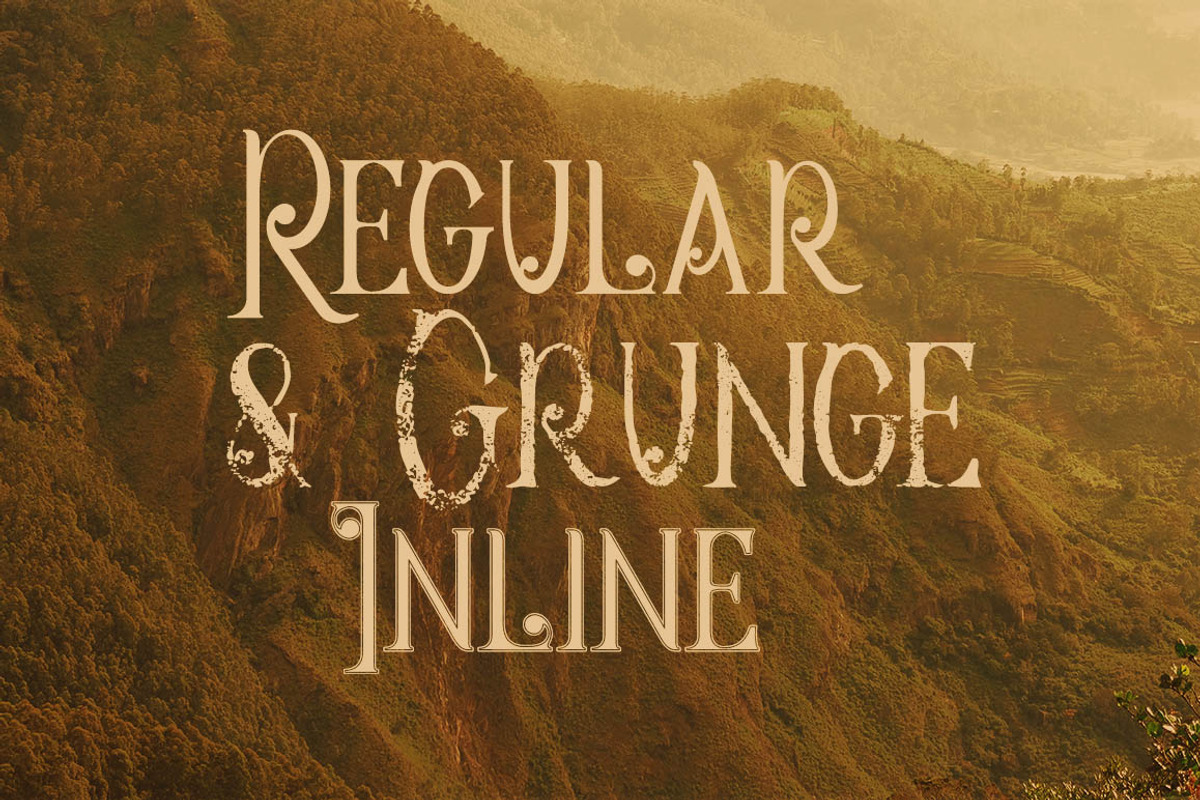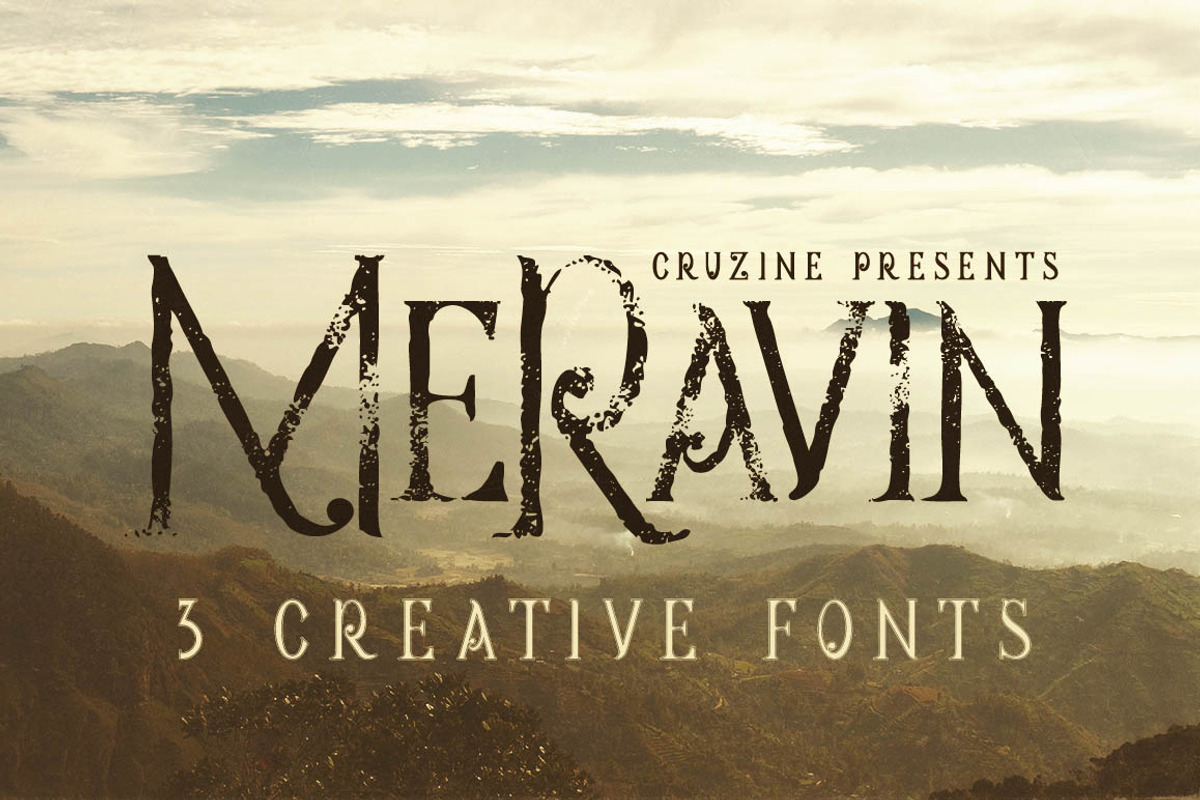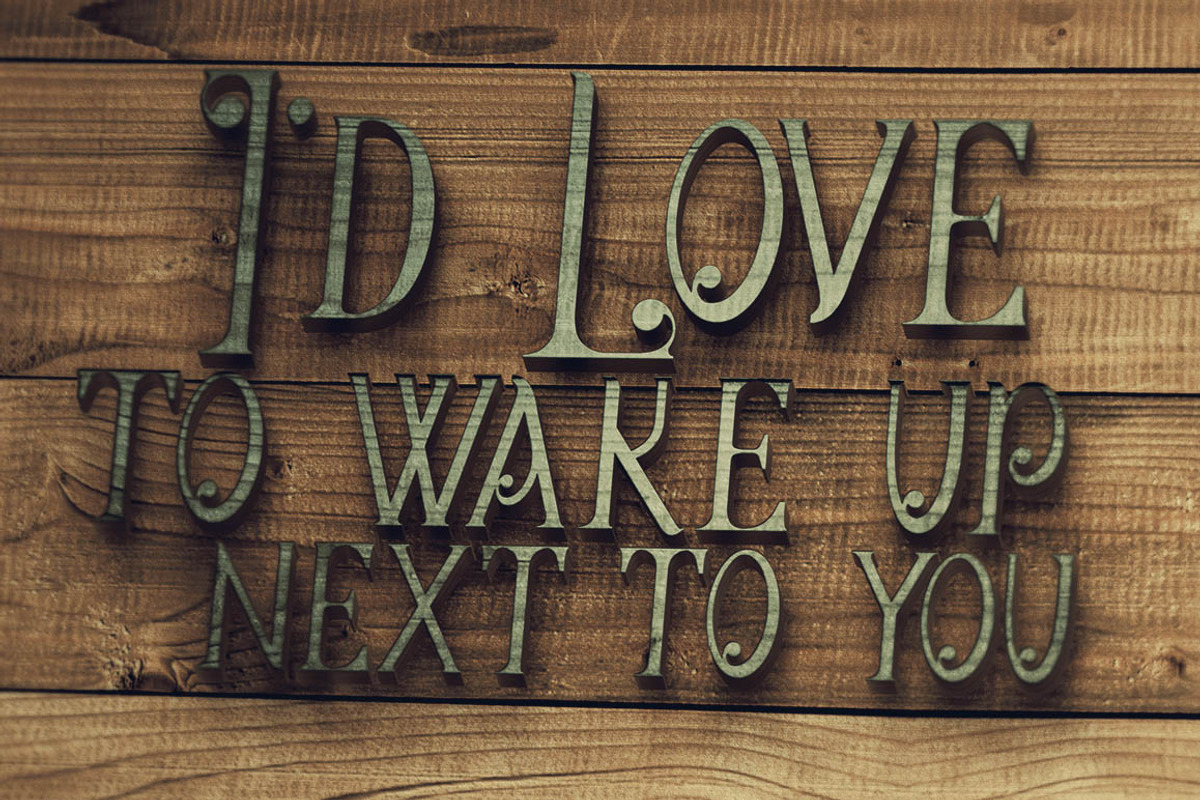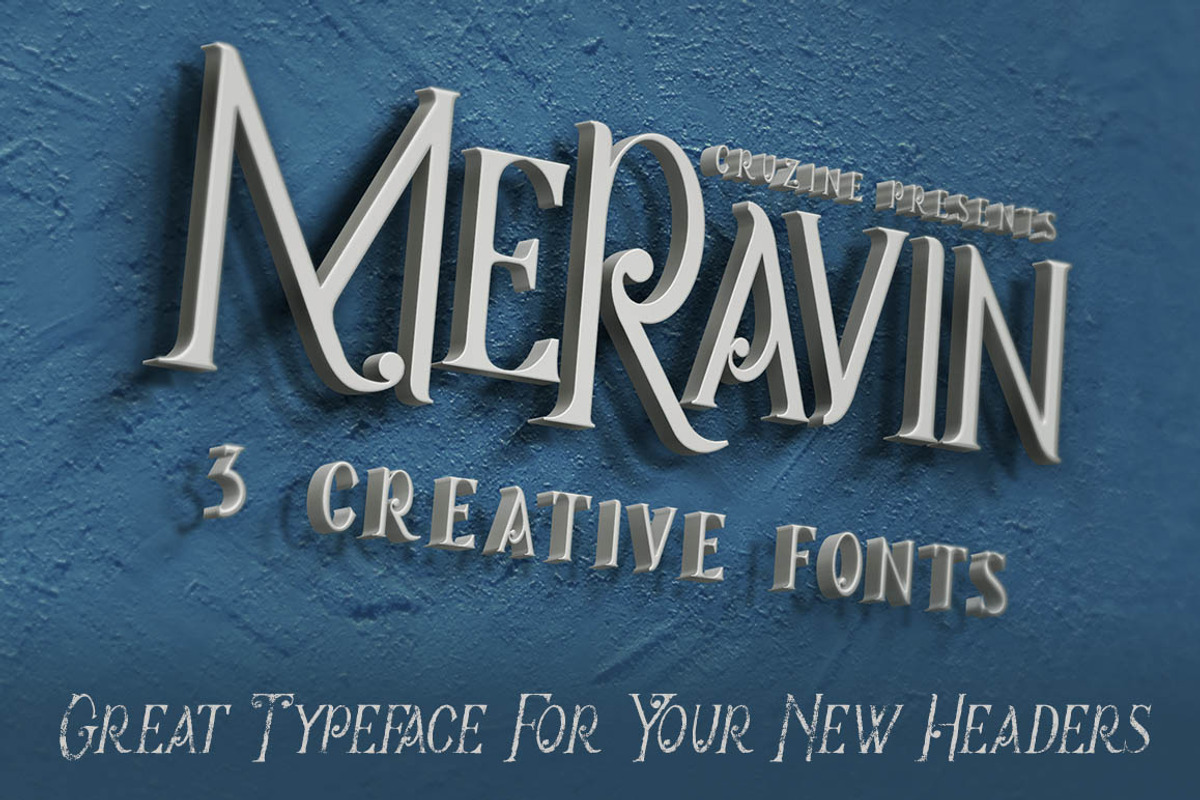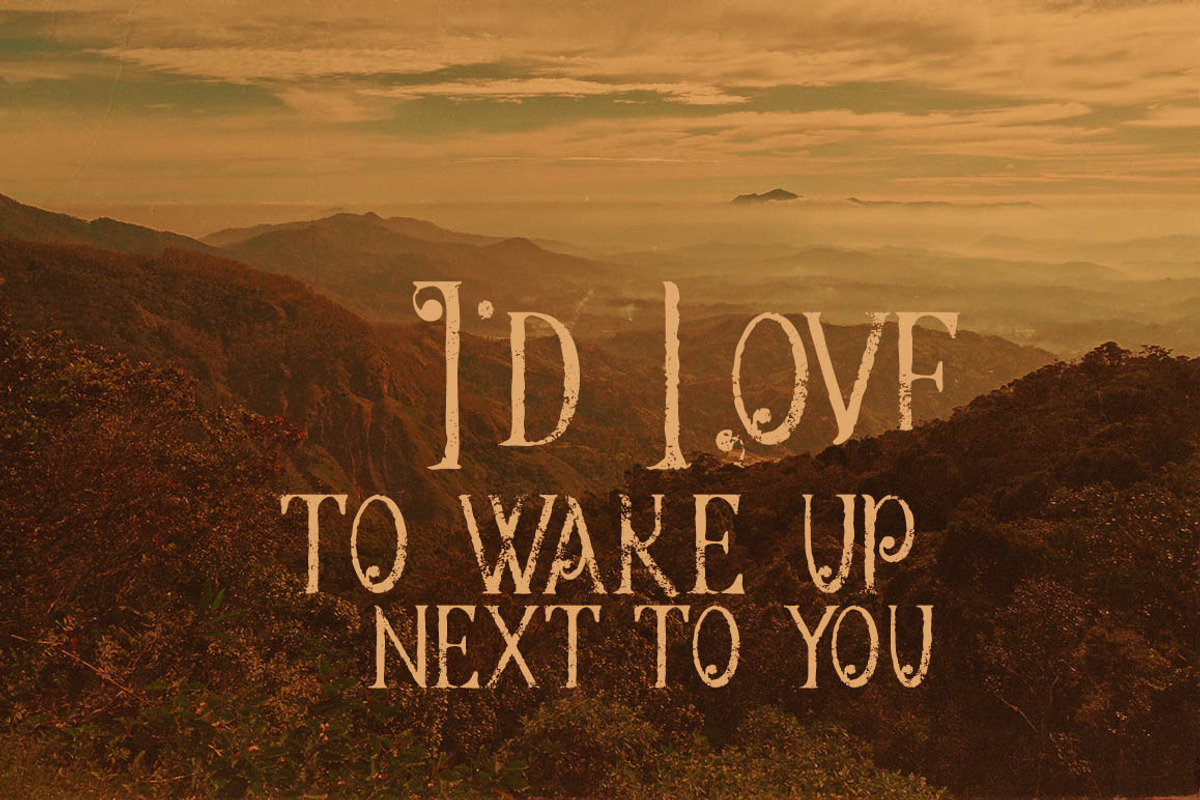
Meravin Typeface
Meravin Typeface by Cruzine is a font selected for branding, posters, packaging, typography.
Why Meravin Typeface is worth a look
Meravin Typeface by Cruzine fits naturally into Branding, posters, packaging, typography.